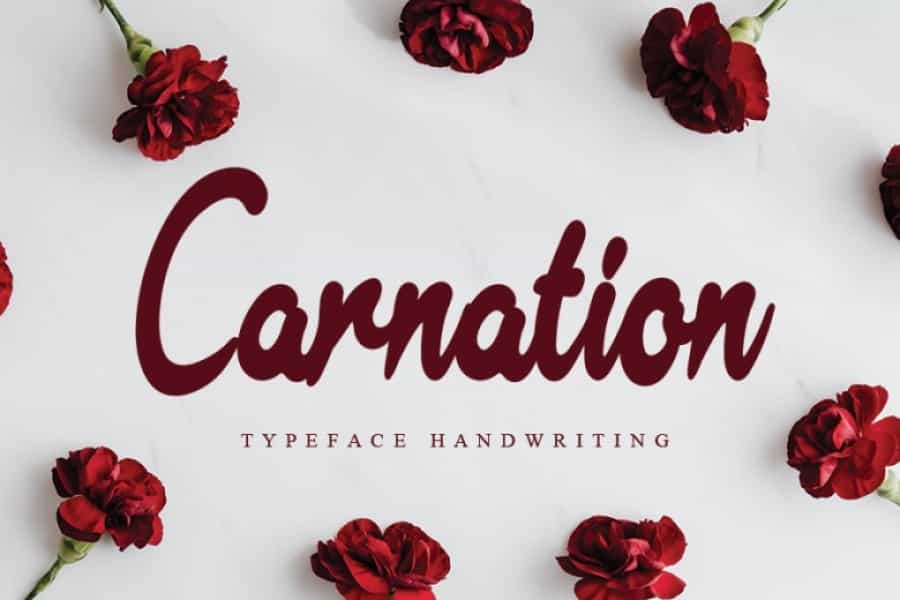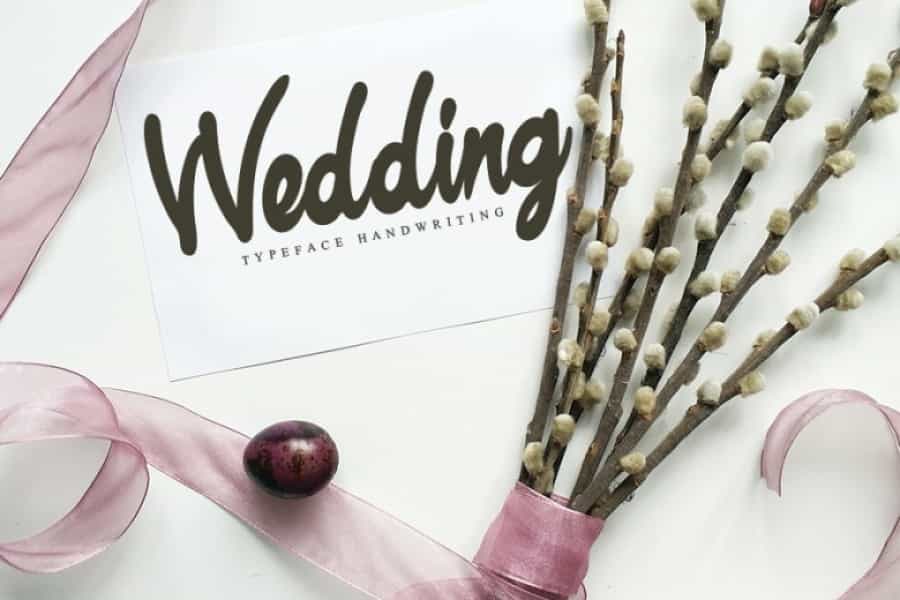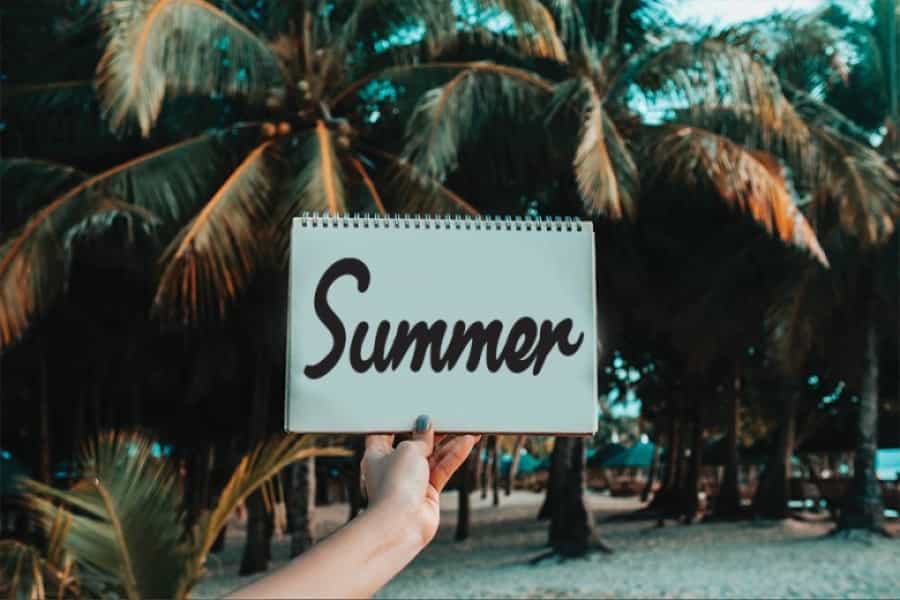
This font can be described as a beautiful handwritten brush font which will make any card, invitation, quote, greeting card, logo, and business card look elegant and flowing. It also enhances the cards and invitations with its beautiful cursive writing that gives a touch of the contemporary!